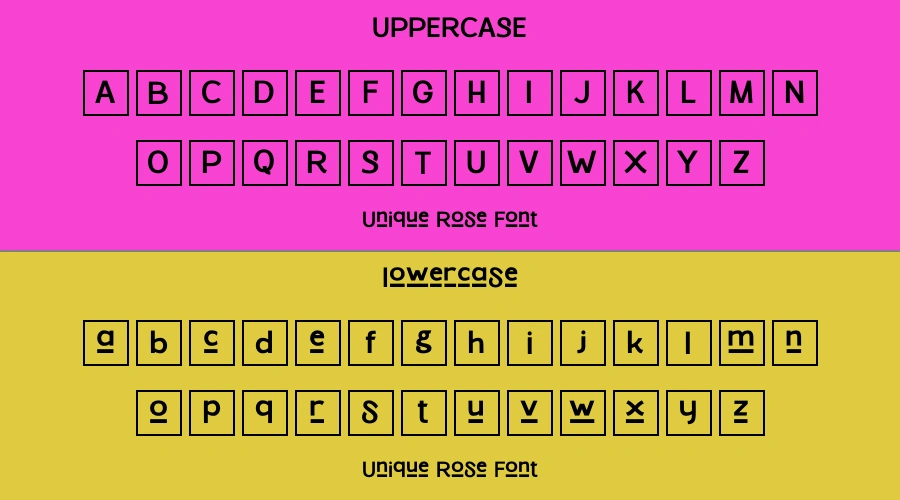
About Unique Rose Font
Designed with precision, Unique Rose Font merges transitional forms with legibility in every character. This versatility makes it particularly effective for motion graphics, where clarity and technical excellence directly impact communication quality. Each letterform demonstrates meticulous craftsmanship.
Technical excellence shines through elements like ornamental details and initial forms, enhancing typographic versatility. In technical manuals settings, Unique Rose Font proves its worth through superior small cap rendering. The thoughtful execution of x-height and research value ensures professional results.